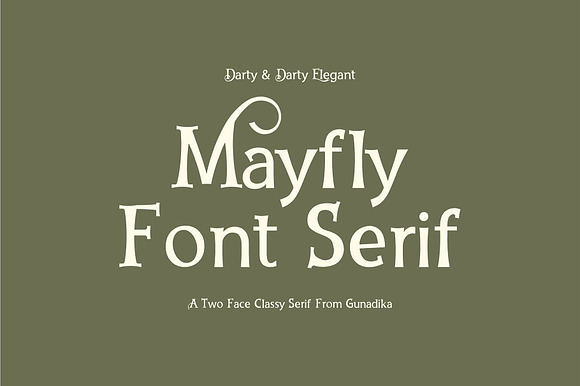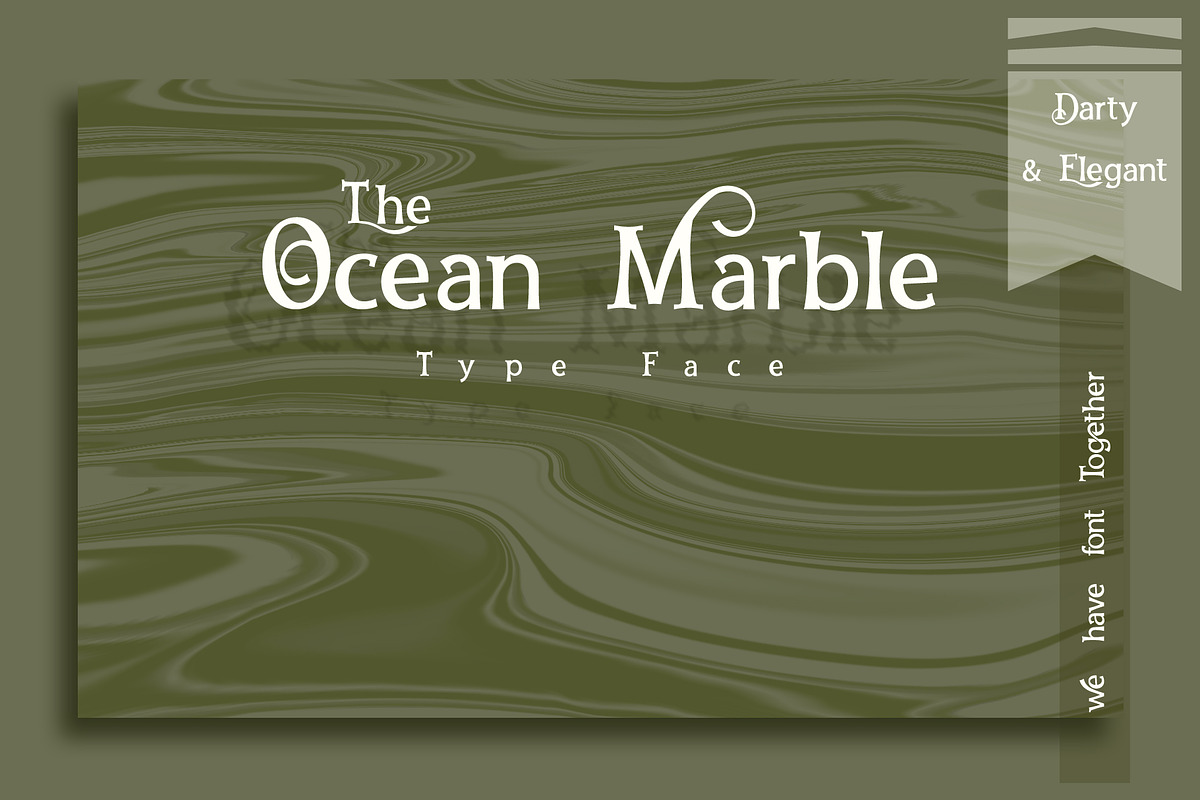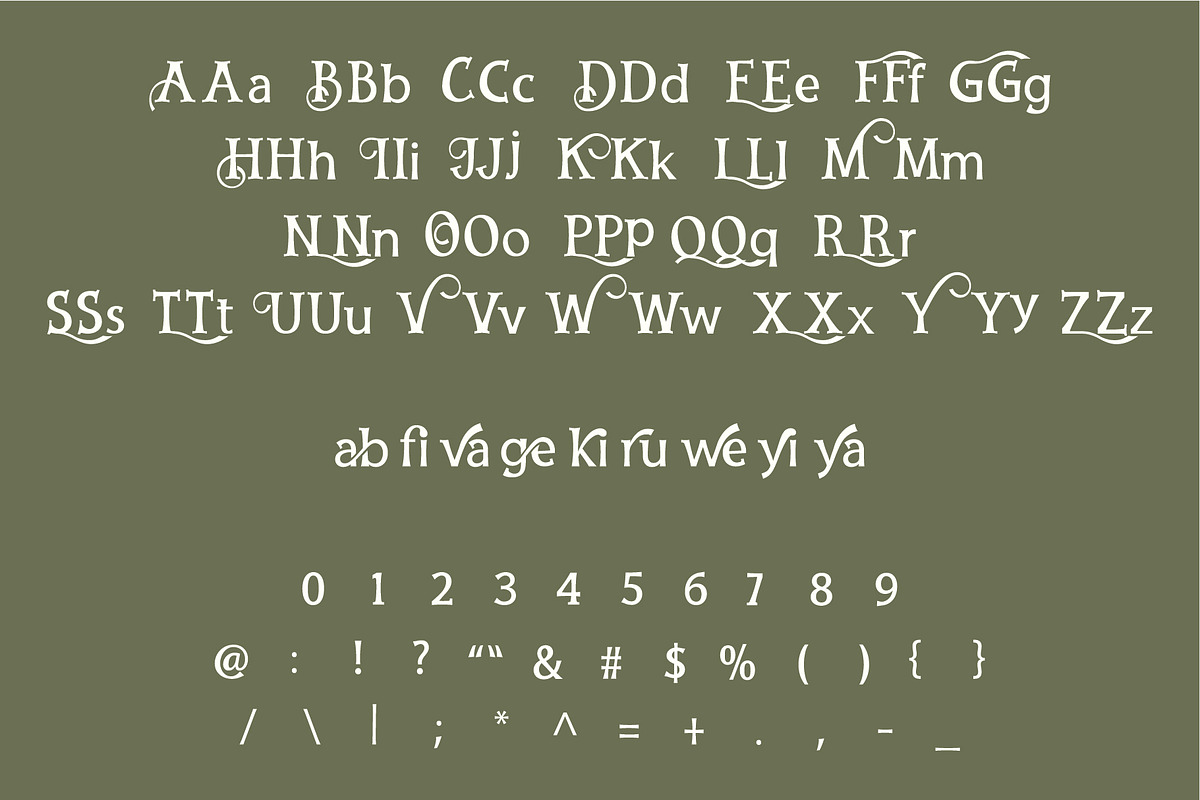
Font Serif Darty
Font Elegant Darty Serif 2 face, Darty Serif & Darty Elegant Serif
Why Font Serif Darty is worth a look
Font Serif Darty by Gunadika -kadek- fits naturally into Branding, posters, packaging, typography.